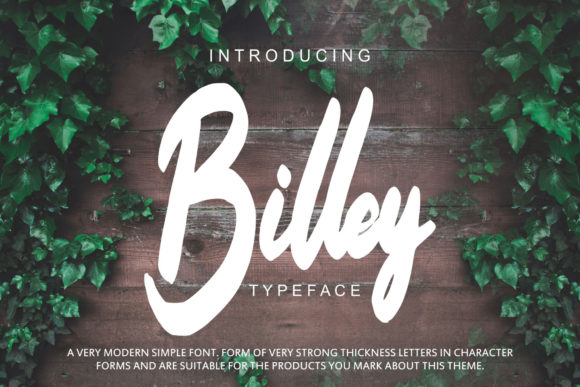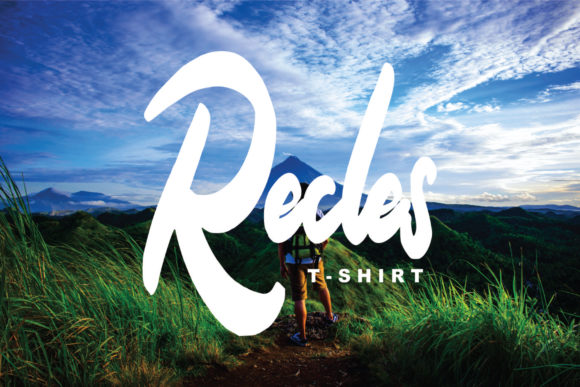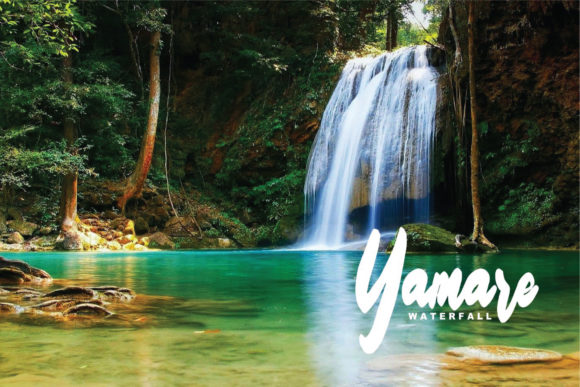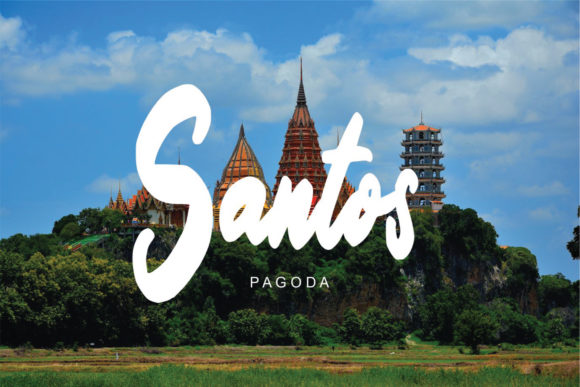
HomeScript FontsBilley Font Script Fonts Billey Font FacebookXPinterestWhatsApp Billey Font Poster 2 Billey Font Poster 3 Billey Font Poster 4 Billey Font Poster 5 About Billey Font Billey is a thick and fun script with natural lettering. It will add an organic charm to any design project! DOWNLOAD NOW People also explored Alluna Font Creative Designer Font Good Looking Font Rancoons Font Bikito Font Crysthel Font Westminster Font Brostars Font Science Doodle Font 269 0 TagsBilley Font Previous articleMellanie! FontNext articleEstrellasa Font LEAVE A REPLY Cancel reply Comment: Please enter your comment! Name:* Please enter your name here Email:* You have entered an incorrect email address! Please enter your email address here Website: Save my name, email, and website in this browser for the next time I comment. Personal Use Free Hommy You Personal Use Free Read more about this font Jelly Fish Personal Use Free Read more about this font Beautiful Personal Use Free Read more about this font Rhetorical Personal Use Free Read more about this font BLOG Best Fonts for T-Shirt Design – Top 2025 Picks In 2025, t-shirt design has become more than just fashion—it's a form of self-expression. Whether you're... Free vs Paid Fonts: Why Investing in Premium Fonts Is Worth It To increase your work productivity, choose the most readable fonts. How to Install and Use Fonts on Windows, macOS, and Web Projects